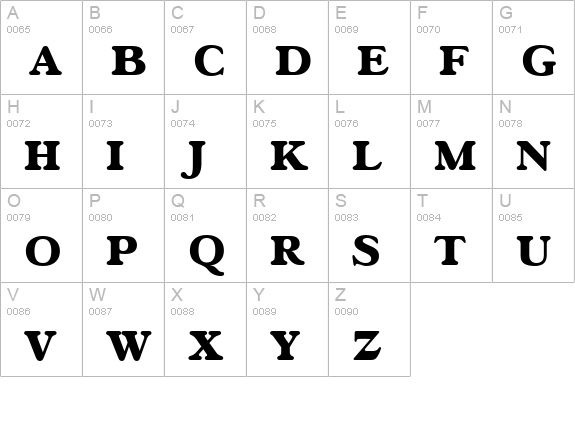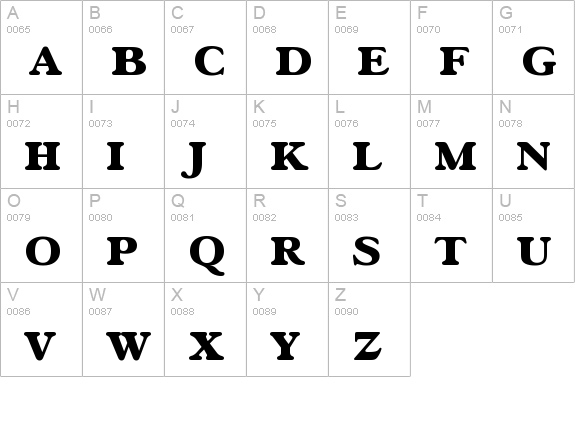
GascogneSerial-Heavy-Regular is a heavy, high-impact variant in the GascogneSerial typeface family \xE2\x80\x94 well suited to high-impact headlines, posters, and display advertising.
GascogneSerial-Heavy-Regular is a bold and distinctive font that exudes elegance and sophistication. With its strong, thick strokes and clean lines, this font is perfect for making a statement in headlines, titles, and other display purposes. What makes GascogneSerial-Heavy-Regular even more appealing is the fact that it is available for free download at FontsMarket.com. This means you can easily add this stunning font to your collection without any cost. Whether you're working on a creative project, designing a website, or simply looking to enhance your typography, GascogneSerial-Heavy-Regular is a fantastic choice that won't break the bank. Impress your audience and elevate your designs with the timeless beauty of GascogneSerial-Heavy-Regular. Download it for free today and see the difference it can make in your projects.